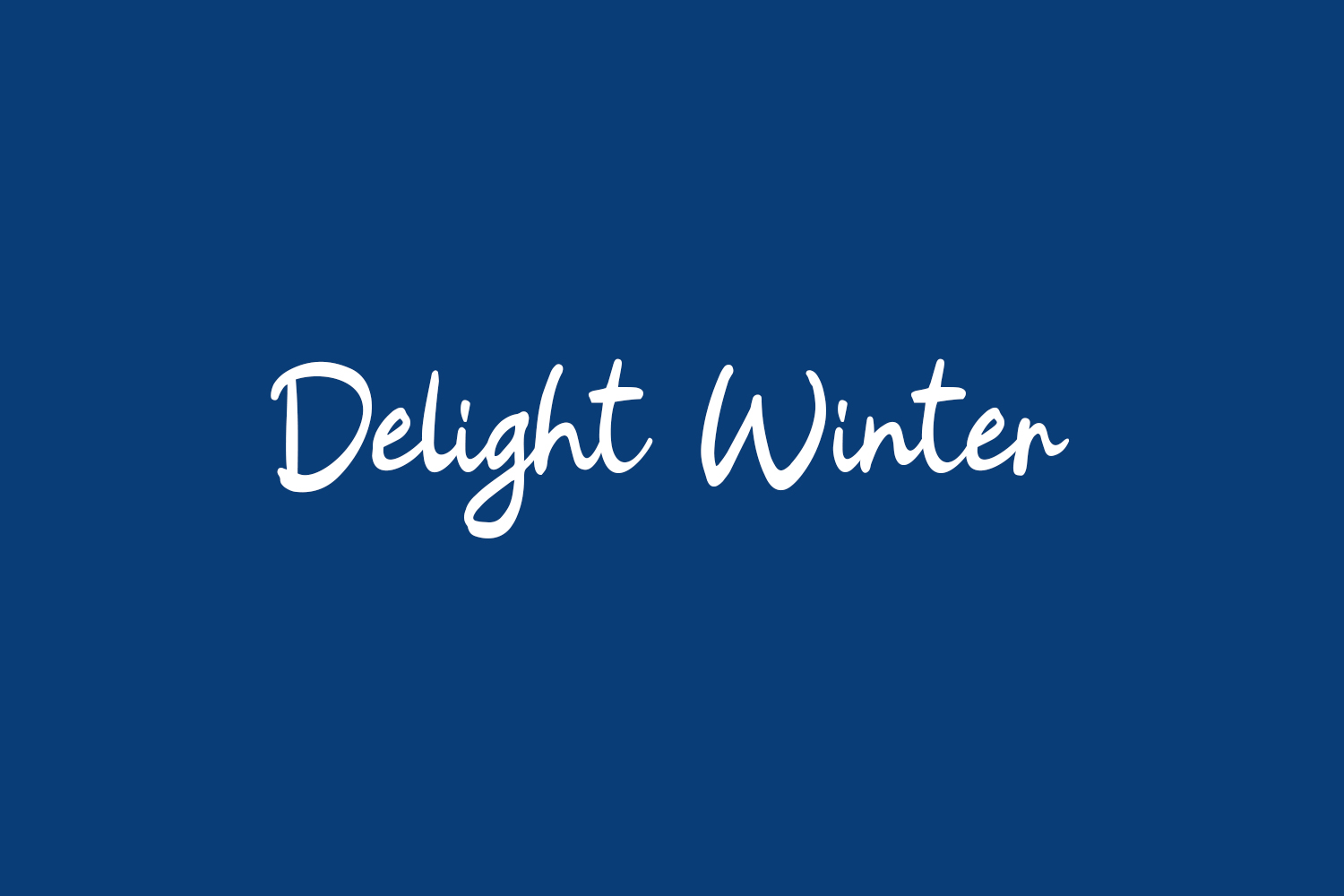
Delight Winter Free Font is a modern calligraphy script font perfect for posters, logos, magazines, book covers, banners, and many more. Delight Winter Free Font was designed by Khurasan and is free for personal or commercial use.